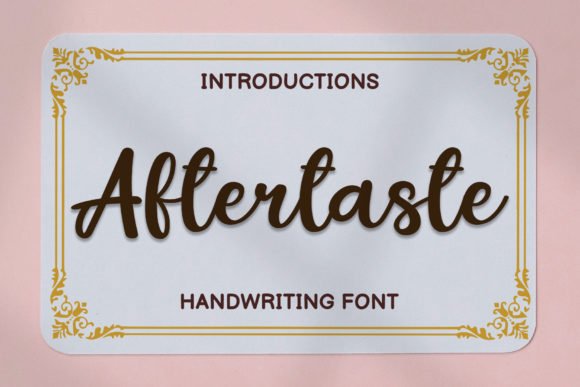
Discover the Flavors of Your Designs with Aftertaste Font
Have you ever been working on a project, and suddenly, the perfect font pops into your mind? That’s exactly what happened to us when we stumbled upon the Aftertaste Font. Its elegant script style is like a breath of fresh air, adding a touch of sophistication to any design.
Aftertaste Font is a beautifully crafted script font designed to elevate your designs to new heights. Whether you’re creating a wedding invitation, a logo, or a promotional material, this font is sure to make a lasting impression. With its PUA encoding, accessing all the glyphs and swashes is a breeze, giving you endless possibilities to experiment and create.
As a designer, you know how valuable a versatile and high-quality font can be. The Aftertaste Font is a game-changer, offering a unique and stylish look that will set your designs apart from the rest. So why settle for ordinary when you can have extraordinary with this amazing font?
Aftertaste Font Key Features
- Unique Characteristics: Aftertaste Font features a unique blend of modern and vintage elements, with intricate details and subtle texture, making it perfect for creative and artistic projects.
Aftertaste Font Review
As a designer, I was excited to dive into the world of “Aftertaste Font”. Upon closer inspection, I noticed that it has a unique blend of modern and vintage elements ✨. The font’s versatility is undeniable, making it suitable for a wide range of projects, from elegant headlines to subtle body text. I particularly appreciate the subtle texture and organic feel that it brings to digital designs.
- Unique blend of modern and vintage elements
- Versatility in its usage
- Subtle texture and organic feel
However, I couldn’t help but notice some limitations ⚠️. The font’s legibility can be compromised at smaller text sizes, which might affect its usability in certain contexts. Additionally, the font’s complexity might make it challenging to pair with other fonts, requiring more trial and error to achieve the desired aesthetic.
- Legibility compromised at smaller text sizes
- Complexity in pairing with other fonts
Overall, I’d say “Aftertaste Font” is a solid choice for designers looking to add some unique flair to their projects. While it may not be the most straightforward font to work with, its distinctive qualities are sure to make it a standout in the right context.
To get the most out of Aftertaste Font, try the following:
- Combine Aftertaste Font with other fonts to create a unique design.
- Use Aftertaste Font in conjunction with graphics and images to add depth and texture.
Aftertaste Font is perfect for:
- Restaurant and cafe menus.
- Product packaging and labels.
- Magazine and brochure design.
- Use the Aftertaste Font as the primary font for the label’s title and description.
- Emphasize the whiskey’s name and vintage with the font’s bold and elegant style.
- Combine the Aftertaste Font with a distressed texture to give the label a vintage feel.
- Pair the font with earthy colors such as wood brown or leather tan to evoke a sense of sophistication.
- Use the Aftertaste Font as the primary font for the blog’s title and tagline.
- Employ the font’s modern and elegant style to create a sense of sophistication and refinement.
- Combine the Aftertaste Font with a bright and bold color scheme to create a striking visual contrast.
- Pair the font with a clean and minimalist design to highlight the blog’s content.